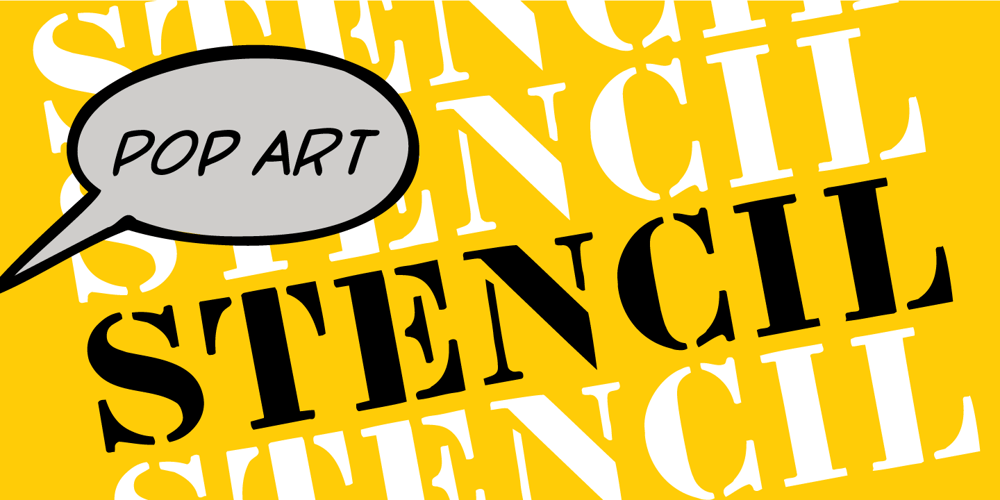
P22 Pop Art Font Family was designed by Richard Kegler, Desmond Poirier and published by P22 Type Foundry. P22 Pop Art contains 3 styles and family package options. This font set was developed for the Albright-Knox Art Gallery and is inspired by their collection of Pop Art. Artists such as Warhol, Lichtenstein, and Rauchenberg sought to blur the lines between high and low art as well as the boundaries between art and everyday life. The alphabets and extras in this set reflect that spirit.